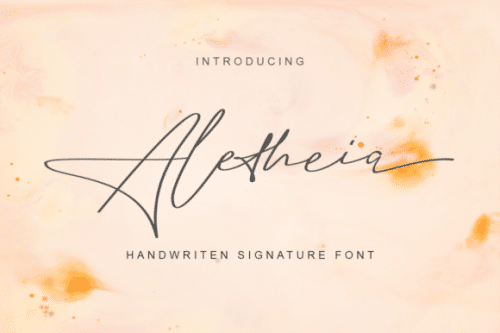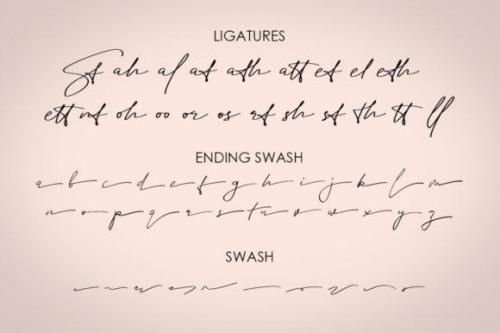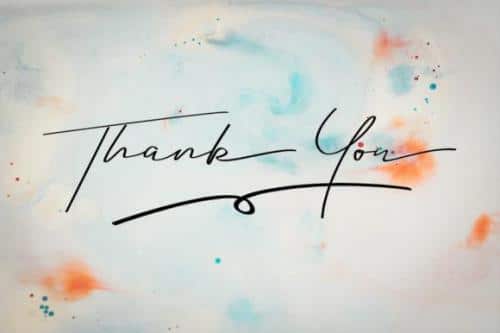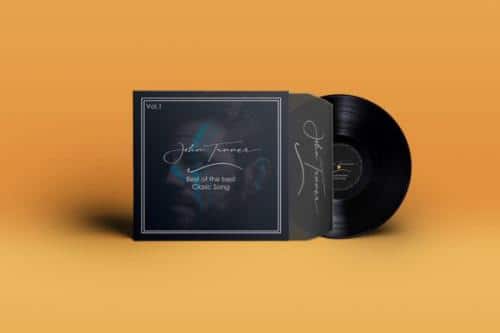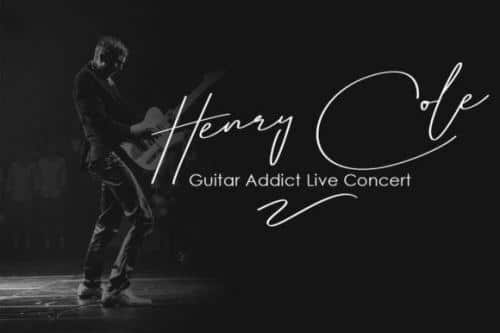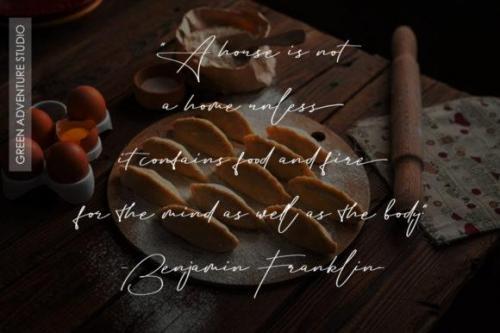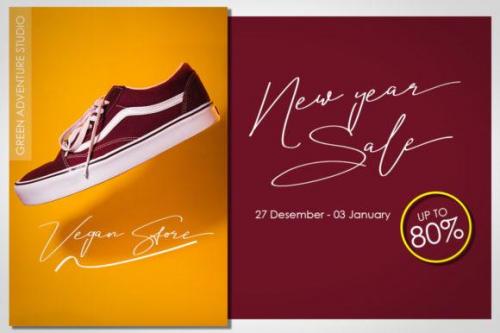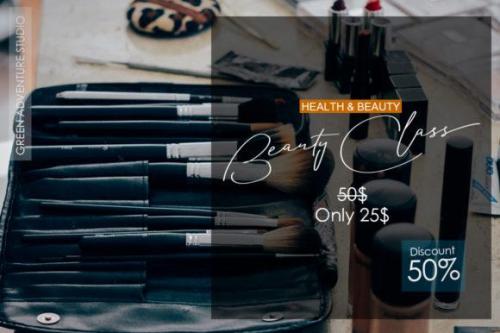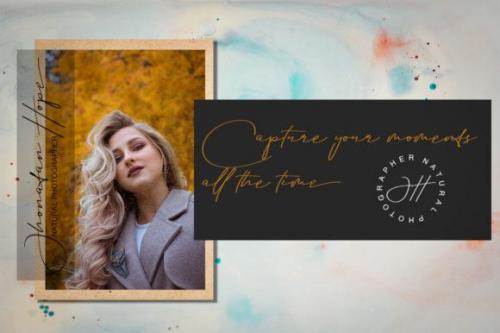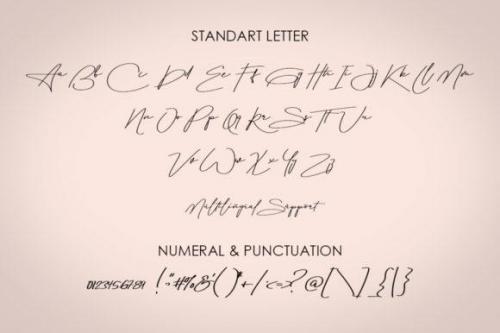
Aletheia is a stunning and elegant script font featuring a heartfelt and sincere look. Fall in love with this outstanding signature font!
Aletheia Font is an elegant handwritten signature script. It is slender, feminine and classy, while still maintaining a friendly feel. It include ligatures, capital letters and alternate letters. Aletheia Font is versatile and will work perfectly for any project that needs to feel sleek and chic.